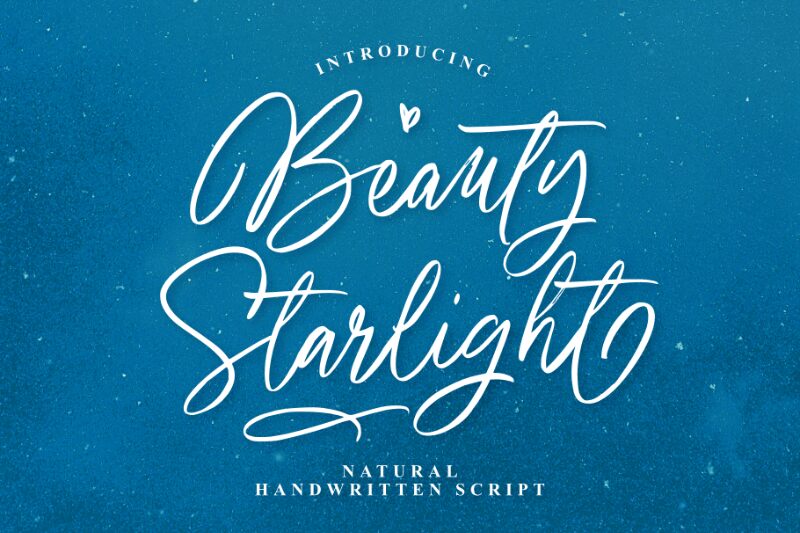
Beauty Starlight font, crafted by Ardian Nuvianto of Damarletter, embodies a whimsical charm with its effortlessly flowing handwritten style. The light brush strokes evoke a sense of delicacy and grace, making it an enchanting choice for any design. Each letter dances playfully, creating an organic rhythm that draws the eye.
This font's aesthetic appeal shines in creative projects ranging from wedding invitations to branding elements. Its dreamy quality lends itself beautifully to various contexts-be it social media graphics or personalized stationery-infusing them with warmth and elegance. Ideal for anything that seeks to impart a personal touch, Beauty Starlight captures the essence of charm and sophistication seamlessly.